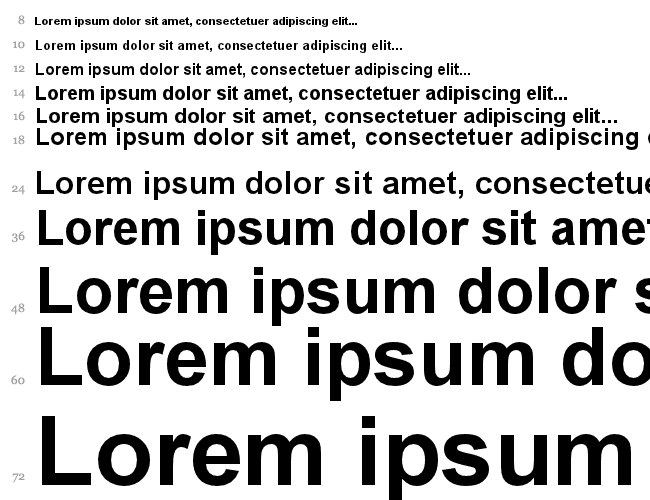
Fonts Arial Bold
Fonts Arial Bold - Download free and premium fonts. Click to find the best 18 free fonts in the bold arial style. Fontsplace is the best place to download arial bold for free. Every font is free to download! Perfect for impactful headlines and expressive content. Unleash creativity with free arial, bold fonts. Drawn in 1982 by robin nicholas and. Looking for bold arial fonts? Arial sans serif font is a humanist font with angled terminals as a identity of this product.
Looking for bold arial fonts? Drawn in 1982 by robin nicholas and. Fontsplace is the best place to download arial bold for free. Click to find the best 18 free fonts in the bold arial style. Every font is free to download! Arial sans serif font is a humanist font with angled terminals as a identity of this product. Unleash creativity with free arial, bold fonts. Download free and premium fonts. Perfect for impactful headlines and expressive content.
Arial sans serif font is a humanist font with angled terminals as a identity of this product. Every font is free to download! Download free and premium fonts. Perfect for impactful headlines and expressive content. Looking for bold arial fonts? Unleash creativity with free arial, bold fonts. Fontsplace is the best place to download arial bold for free. Click to find the best 18 free fonts in the bold arial style. Drawn in 1982 by robin nicholas and.
Perfect for impactful headlines and expressive content. Looking for bold arial fonts? Download free and premium fonts. Click to find the best 18 free fonts in the bold arial style. Arial sans serif font is a humanist font with angled terminals as a identity of this product.
Arial Bold Font
Drawn in 1982 by robin nicholas and. Unleash creativity with free arial, bold fonts. Every font is free to download! Download free and premium fonts. Perfect for impactful headlines and expressive content.
Arial sans serif font is a humanist font with angled terminals as a identity of this product. Unleash creativity with free arial, bold fonts. Looking for bold arial fonts? Perfect for impactful headlines and expressive content. Click to find the best 18 free fonts in the bold arial style.
Every font is free to download! Drawn in 1982 by robin nicholas and. Fontsplace is the best place to download arial bold for free. Unleash creativity with free arial, bold fonts. Perfect for impactful headlines and expressive content.
Drawn in 1982 by robin nicholas and. Looking for bold arial fonts? Arial sans serif font is a humanist font with angled terminals as a identity of this product. Unleash creativity with free arial, bold fonts. Every font is free to download!
Click to find the best 18 free fonts in the bold arial style. Looking for bold arial fonts? Unleash creativity with free arial, bold fonts. Fontsplace is the best place to download arial bold for free. Download free and premium fonts.
Arial is everywhere
Click to find the best 18 free fonts in the bold arial style. Perfect for impactful headlines and expressive content. Unleash creativity with free arial, bold fonts. Arial sans serif font is a humanist font with angled terminals as a identity of this product. Every font is free to download!
Identifont Arial Bold
Every font is free to download! Fontsplace is the best place to download arial bold for free. Arial sans serif font is a humanist font with angled terminals as a identity of this product. Perfect for impactful headlines and expressive content. Unleash creativity with free arial, bold fonts.
Arial Bold Font Alphabet Stencil Letter Stencils Online
Fontsplace is the best place to download arial bold for free. Perfect for impactful headlines and expressive content. Click to find the best 18 free fonts in the bold arial style. Unleash creativity with free arial, bold fonts. Download free and premium fonts.
Drawn In 1982 By Robin Nicholas And.
Click to find the best 18 free fonts in the bold arial style. Arial sans serif font is a humanist font with angled terminals as a identity of this product. Perfect for impactful headlines and expressive content.